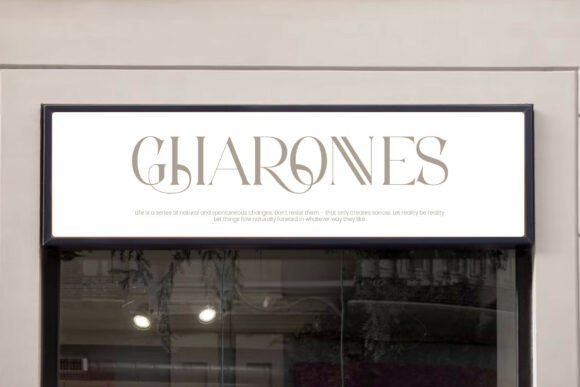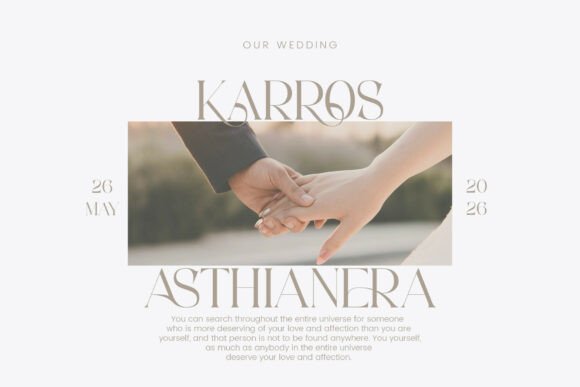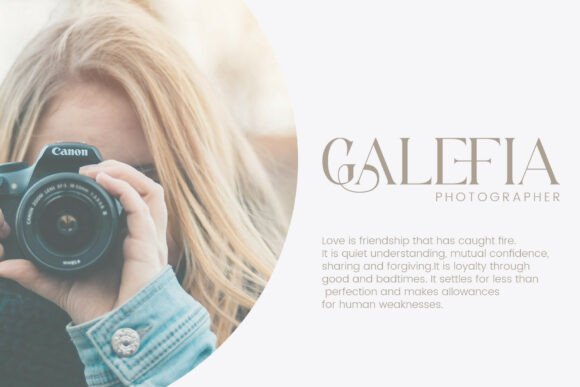
Introduction to Hugas Font Font
Fonts play a crucial role in design, and the Hugas Font font is a typeface that brings both character and versatility to any project. Whether you’re working on a branding project, a website, or a print design, the Hugas Font font offers a unique style that can elevate your work.
Hugas Stylish Ligature Typeface, inspired by the famous minimalist logo perfect for the purposes of designing templates, brochures, videos, advertising branding, logos and more.
Key Features of Hugas Font Font
Why Choose Hugas Font Font?
The Hugas Font font is more than just a typeface β it’s a design tool that helps you communicate your message with style and clarity. Its unique character set and versatile design make it suitable for a wide range of applications, from elegant invitations to bold headlines.
With its carefully crafted letterforms and balanced proportions, the Hugas Font font ensures readability and visual appeal across all mediums.
What makes Hugas Font font special?
The Hugas Font font stands out with its unique design, exceptional readability, and versatility across various design applications.